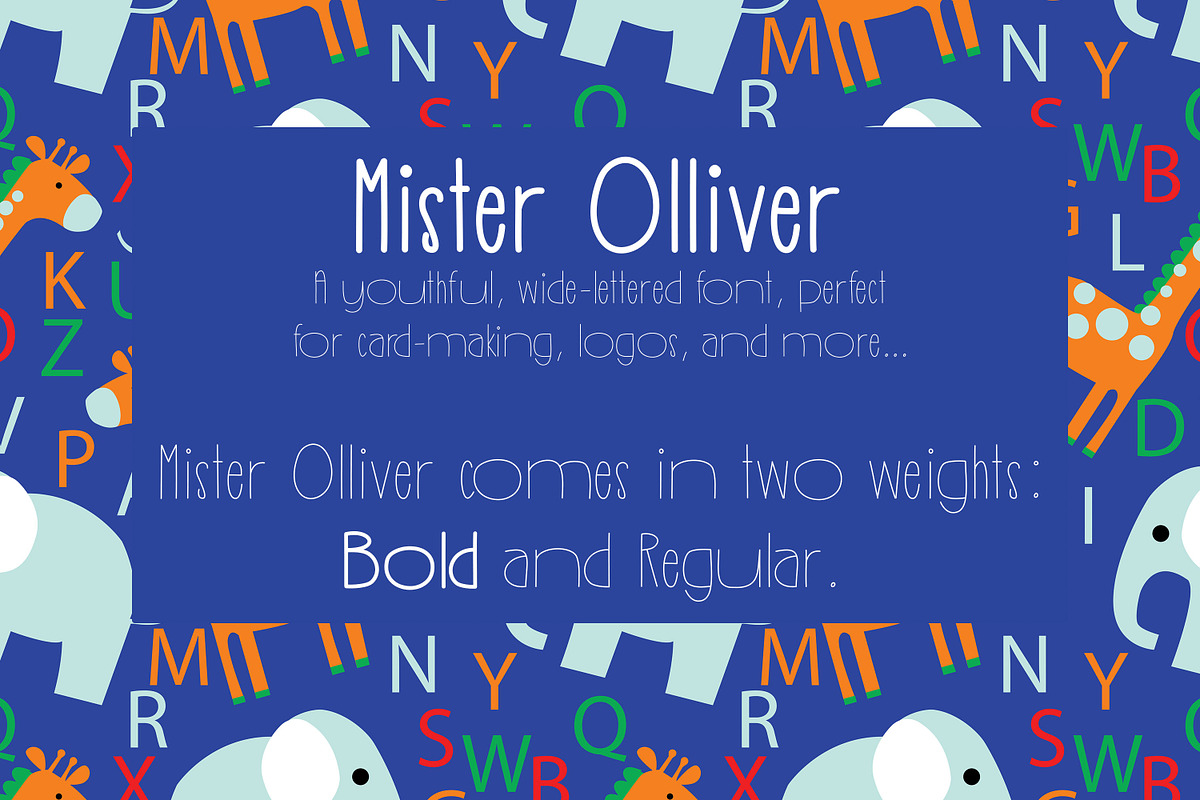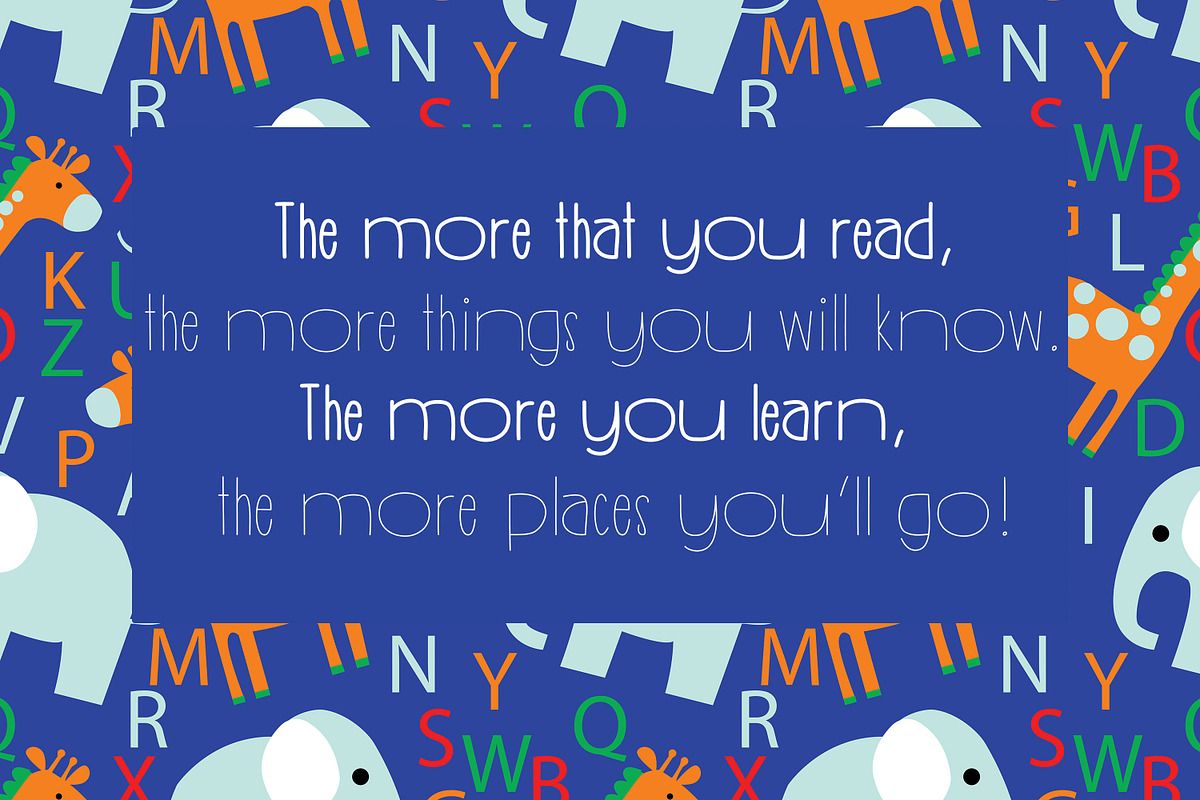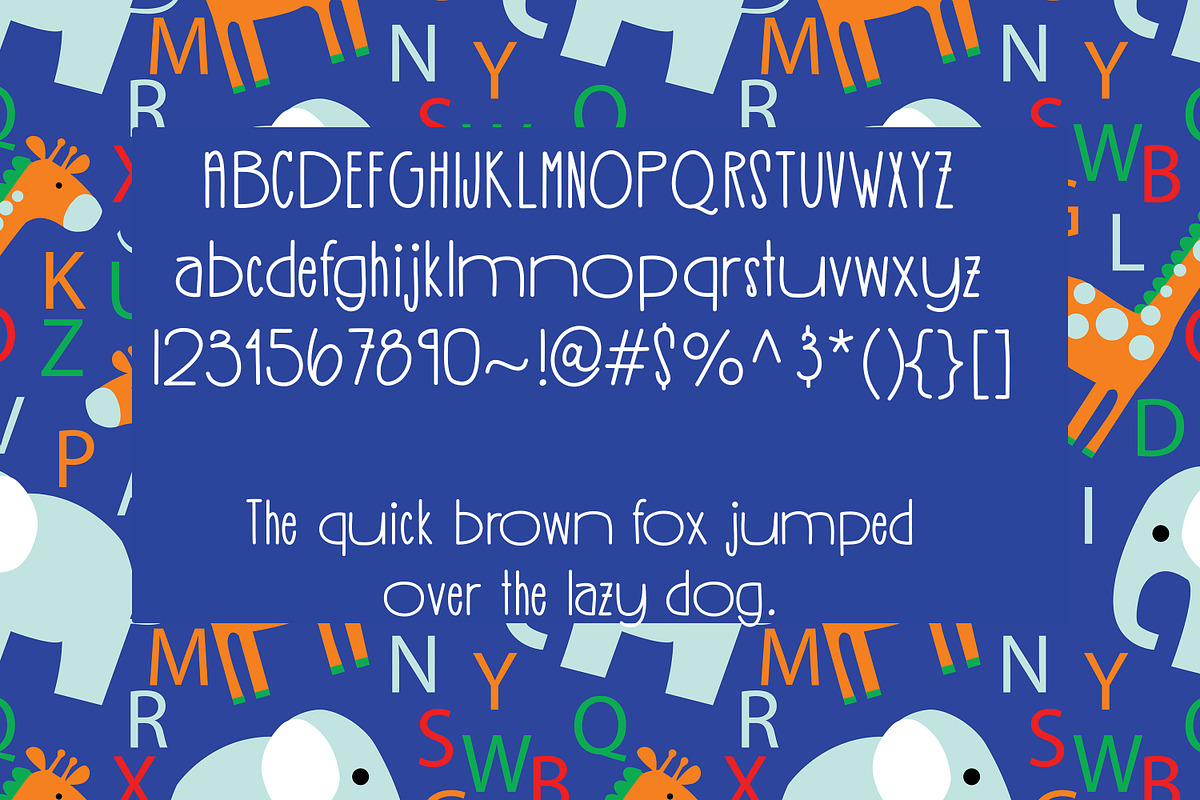
Mister Olliver
Mister Olliver is a youthful font perfect for all your child-needs. Perfect for posters, labels, and even logos. This font is perfect for:
- greeting cards
- invitations
- posters
- t-shirt designs